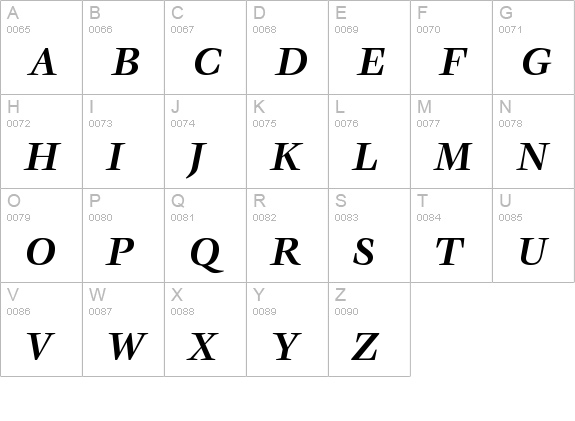
VeljovicEF-BoldItalic Font Details
VeljovicEF-BoldItalic is a stunning and versatile font that exudes elegance and sophistication. Its bold and italic design adds a touch of flair to any design project, making it perfect for headlines, logos, and branding materials. This font is a true masterpiece, crafted with meticulous attention to detail, making it a standout choice for designers who value quality and excellence. What sets VeljovicEF-BoldItalic apart is not only its remarkable aesthetics but also its accessibility. It is available for free download at FontsMarket.com, allowing designers from all walks of life to have access to this exceptional typeface. Whether you are a professional designer or a hobbyist, this font is at your fingertips, ready to elevate your projects to new heights. The versatility of VeljovicEF-BoldItalic is evident in its ability to adapt to various design styles and contexts. Its bold strokes and italicized letterforms make it perfect for creating eye-catching headlines that demand attention. Additionally, its refined curves and elegant serifs make it an excellent choice for logo designs that exude sophistication and class. With VeljovicEF-BoldItalic, you can effortlessly create designs that leave a lasting impression. Its timeless appeal and attention to detail make it a go-to font for a wide range of design projects. Whether you are designing a magazine layout, a website, or a packaging design, this font will effortlessly elevate your work, adding a touch of professionalism and refinement. So, why wait? Embrace the beauty and versatility of VeljovicEF-BoldItalic today. With its availability as a free download at FontsMarket.com, there is no reason not to add this exceptional font to your design arsenal. Let VeljovicEF-BoldItalic be the key to unlocking your creativity and taking your designs to the next level.